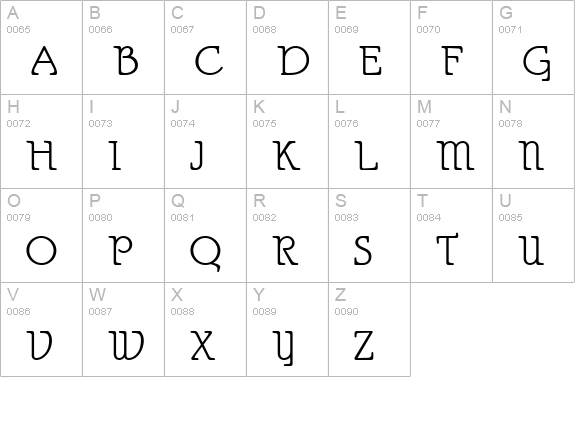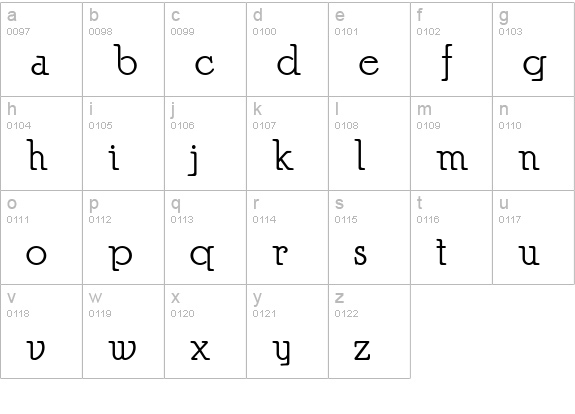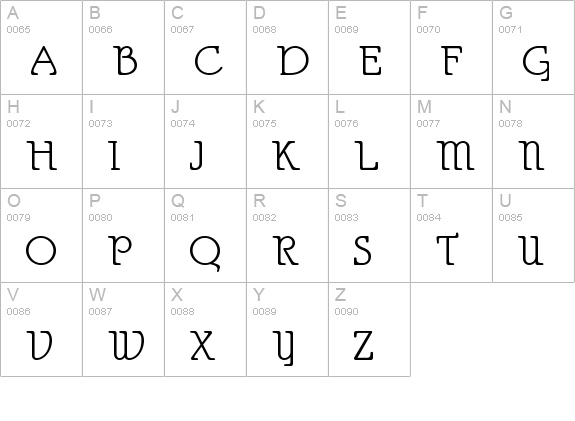
ParsnipNF Font Details
ParsnipNF is a stunningly elegant font that effortlessly combines modernity with a touch of vintage charm. With its delicate letterforms and graceful strokes, this typeface is a true masterpiece that will elevate any design project to new heights of sophistication. The clean and fluid lines of ParsnipNF create a sense of effortless beauty, making it perfect for a wide range of applications. Whether you're designing a logo, crafting a wedding invitation, or creating stunning visuals for your social media feeds, this font will captivate your audience and leave a lasting impression. What sets ParsnipNF apart is not only its timeless beauty but also the fact that it is completely free. Yes, you read that right! This exquisite font is freely available to download at FontsMarket.com. Now you can bring a touch of elegance to your projects without breaking the bank. With its extensive character set, ParsnipNF offers endless possibilities for customization and creativity. From alternative letterforms to ligatures and swashes, this font provides you with the tools to truly make it your own. Whether you want to add a playful flourish or a sophisticated flourish, ParsnipNF has got you covered. So why wait? Download ParsnipNF today from FontsMarket.com and unlock a world of design possibilities. Let this font inspire you and take your projects to new heights. With its timeless beauty and its free availability, ParsnipNF is truly a font that every designer needs in their toolkit.